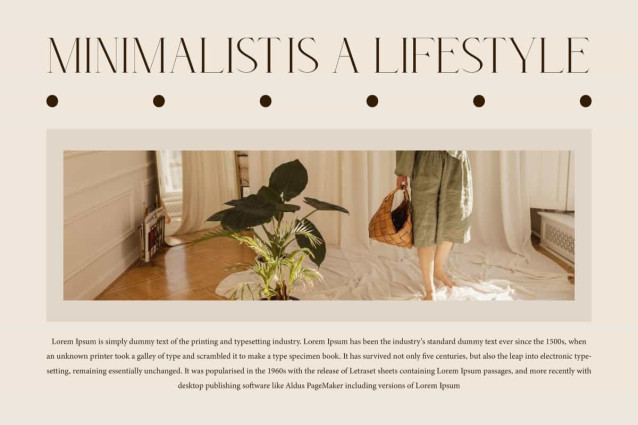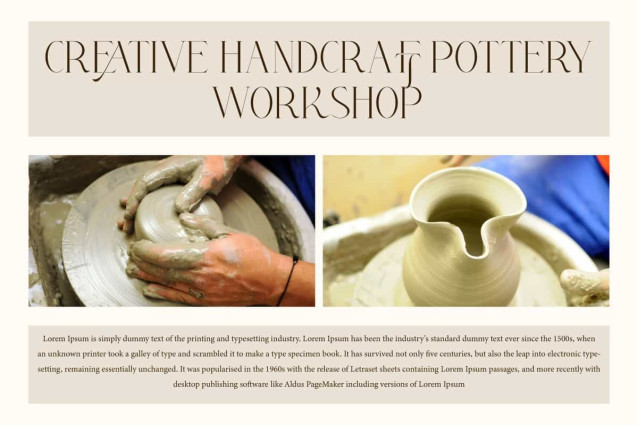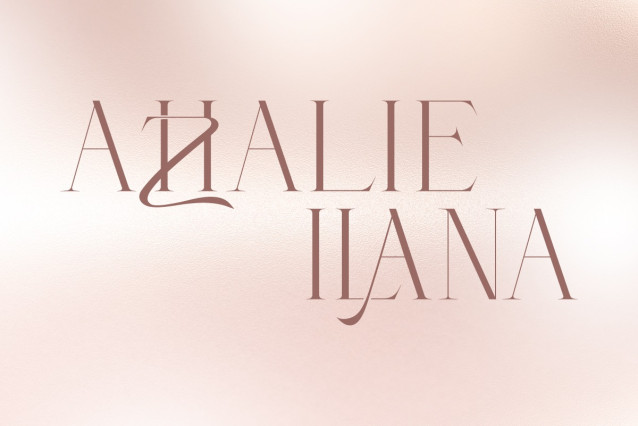
Azhalie Ilana Font
Azhalie Ilana Font is a stunning serif font with unique and artistic characteristics. Each letter has a subtle typographic touch with distinctive curved details. This font will be perfect for any projects, can be used for advertisement, brand image, custom design, invitation, label, layout design, quotes, stationery, template design, website, and more!
Azhalie Ilana Font includes full set of Uppercase and Lowercase Basic Characters, Numerals, Punctuation, Symbol, and Ligature character. This font creates a balance between classic elegance and modern aesthetics. Making it a perfect choice for a variety of fields, such as accessories and jewelry, beauty product, event or wedding organizer, fashion, florist, furniture, real estate, spa salon, etc.